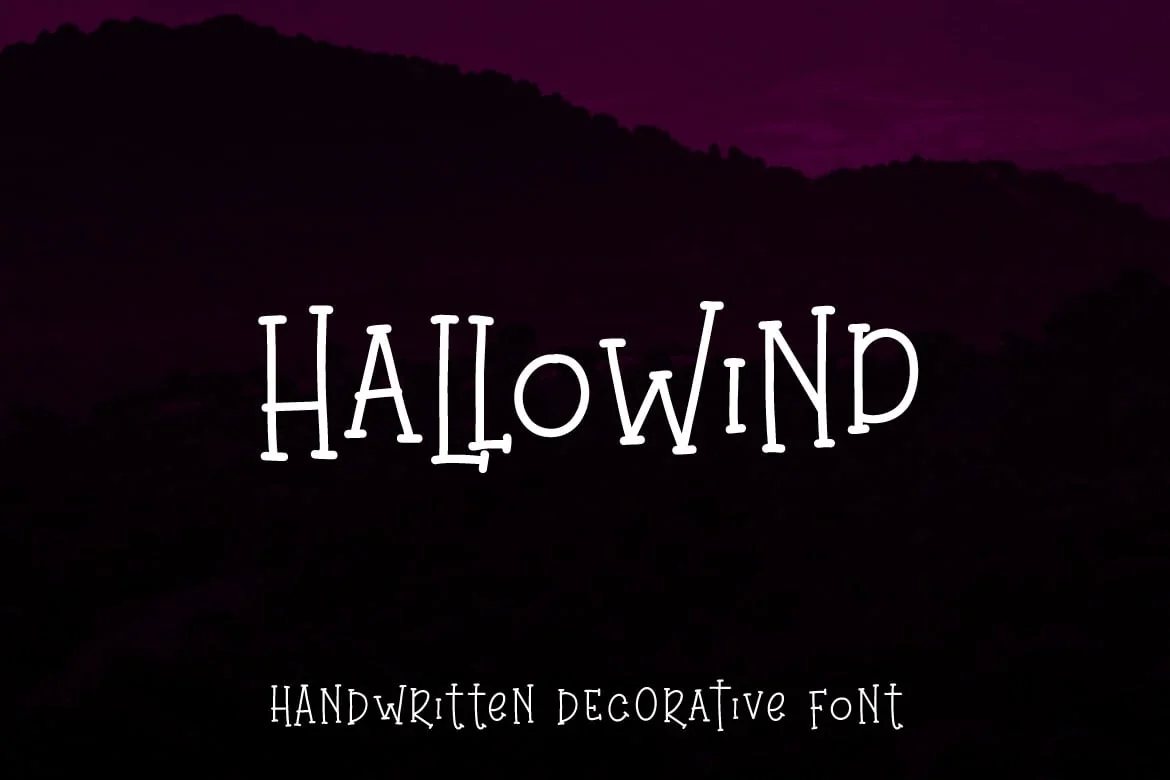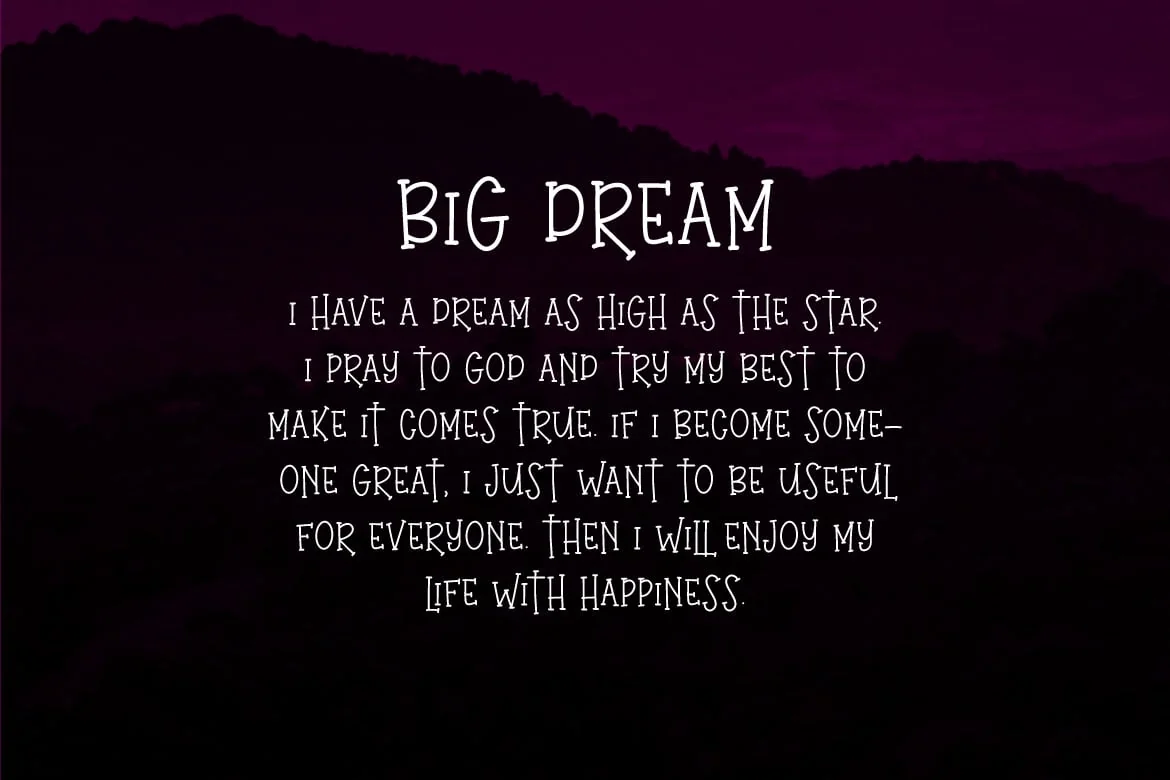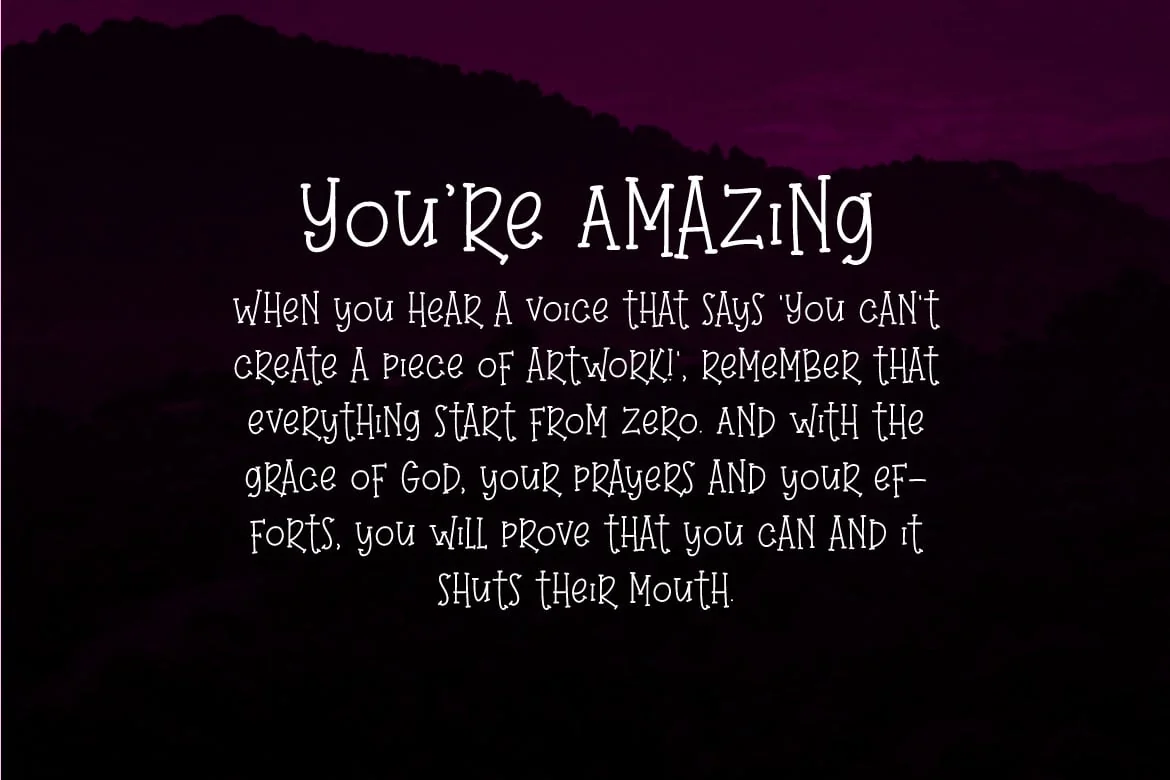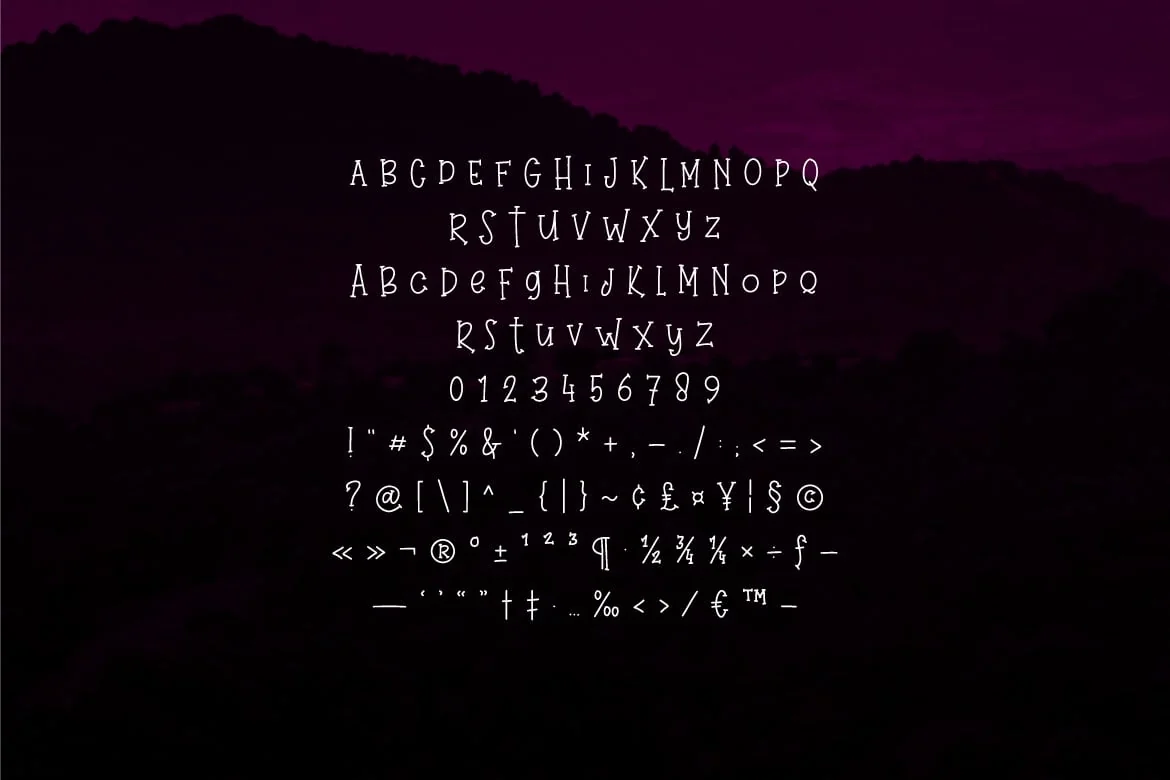
Hallowind – Decorative Font
Hello! Hallowind is a halloween display font.
Hallowind can be used in any works such as comic book, poster, school, flyer, book title, advertisement, social media content, logo and many more.